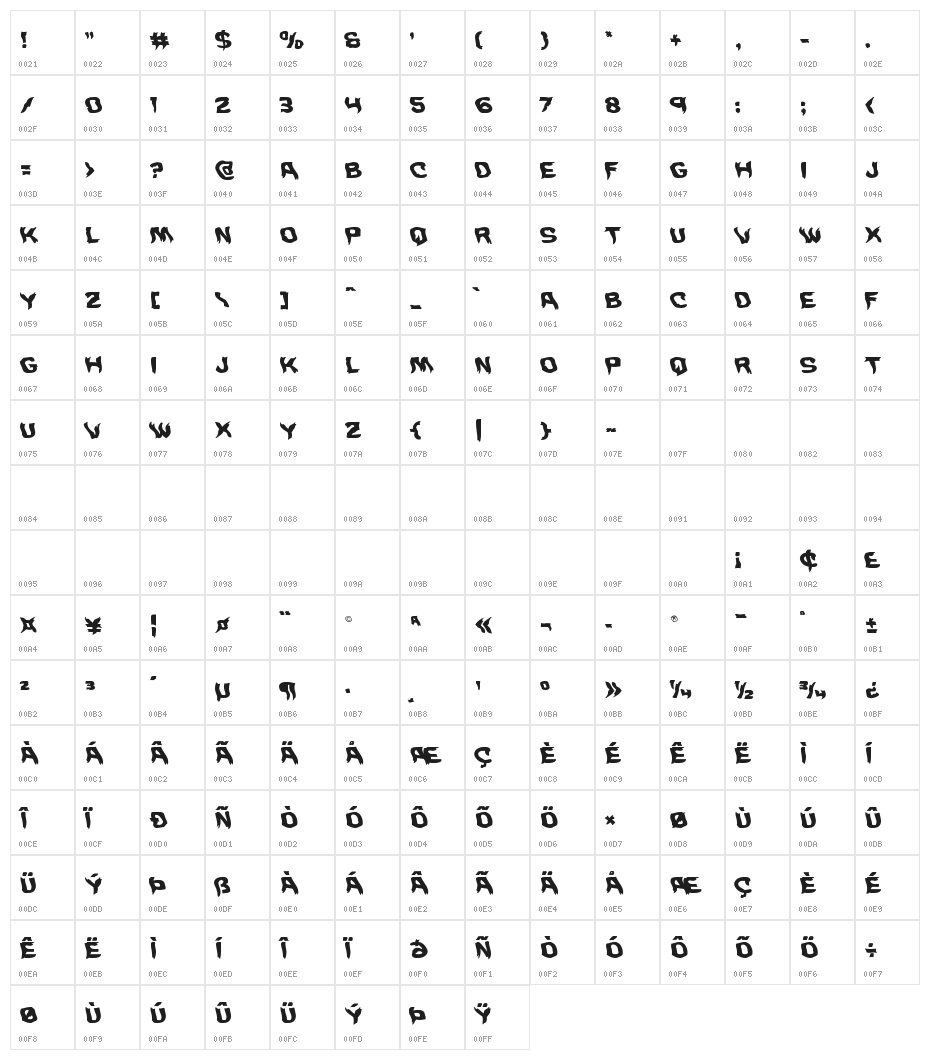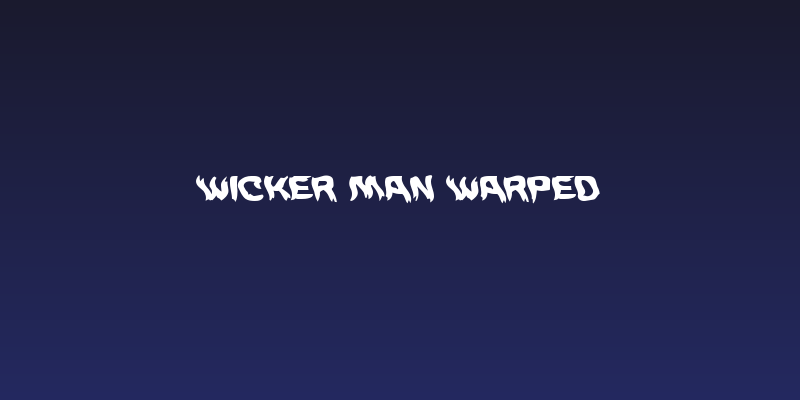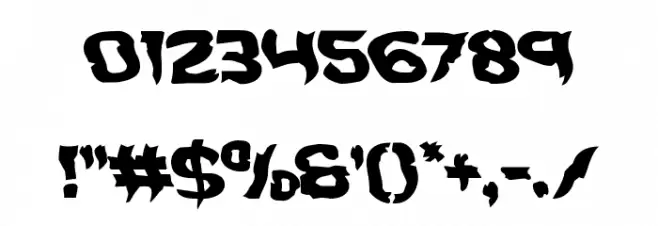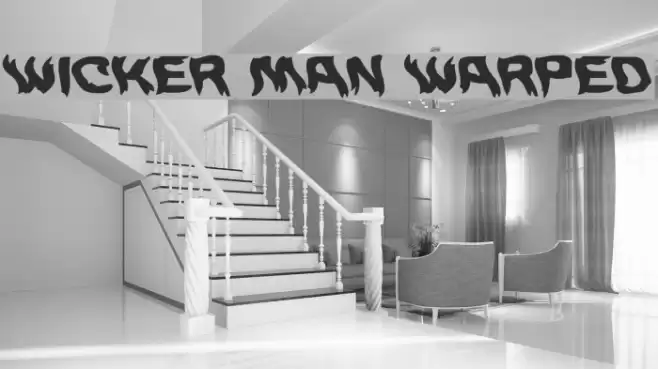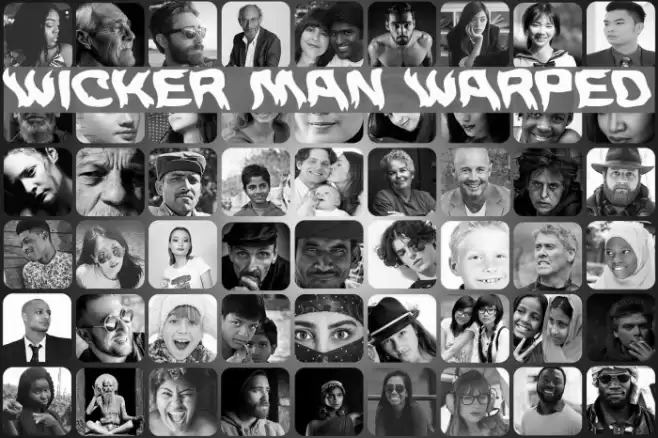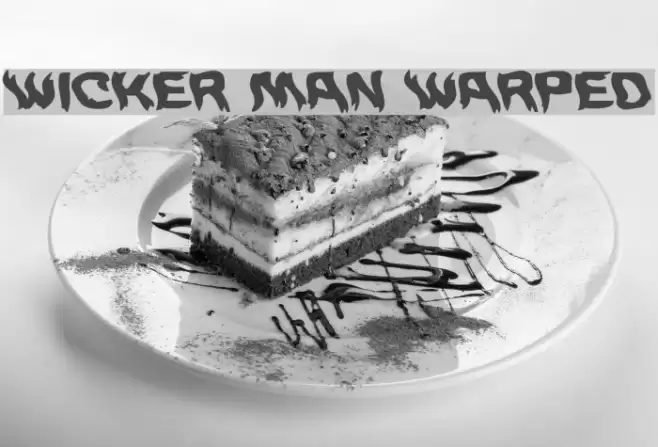
Wicker Man Warped Font
Wicker Man Warped Description
This font features a bold and aggressive design with sharp, jagged edges that give it a dynamic and intense appearance. The characters are heavily stylized, resembling torn or shredded paper, which adds a sense of movement and energy. The uppercase and lowercase letters maintain a consistent style, with exaggerated serifs and irregular shapes that create a chaotic yet cohesive look. Numbers and special characters follow the same design principles, ensuring uniformity across all glyphs. The font's unique style makes it ideal for projects that require a dramatic and eye-catching typeface.
| Proposed Projects | Perfect for horror-themed posters, edgy branding, music album covers, and Halloween event flyers. |